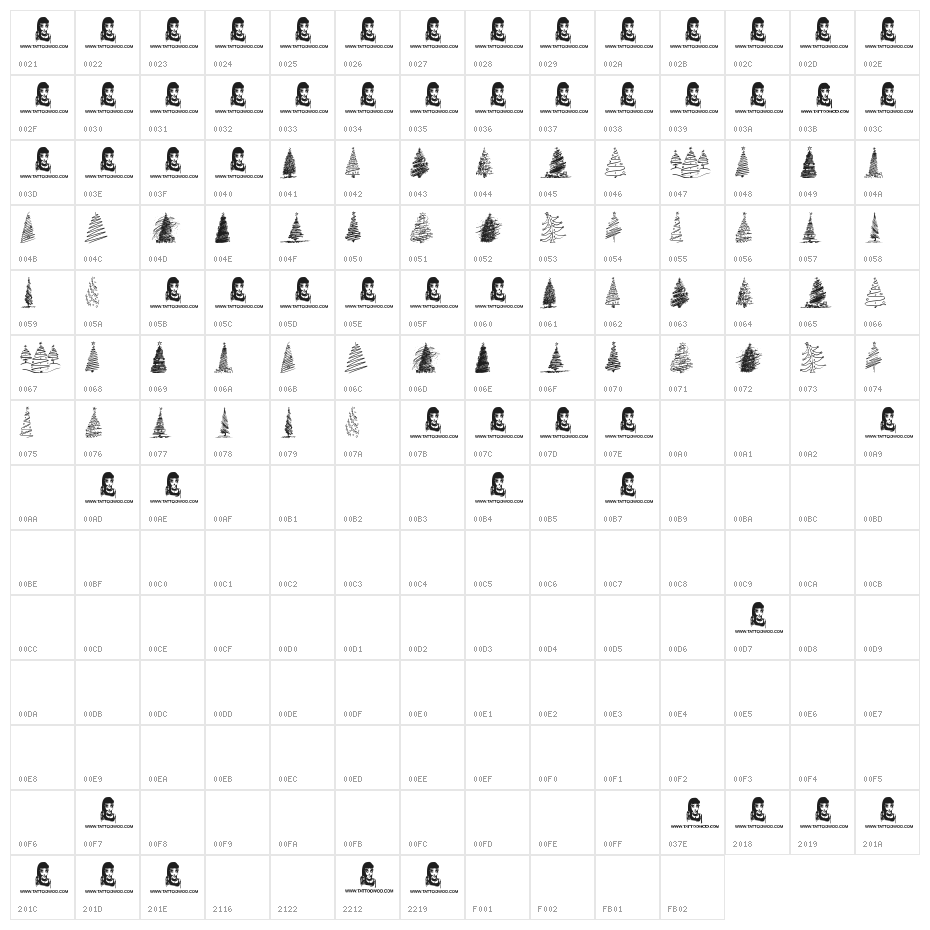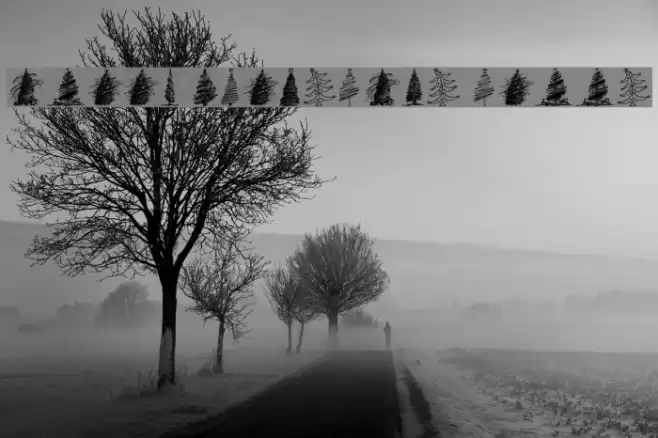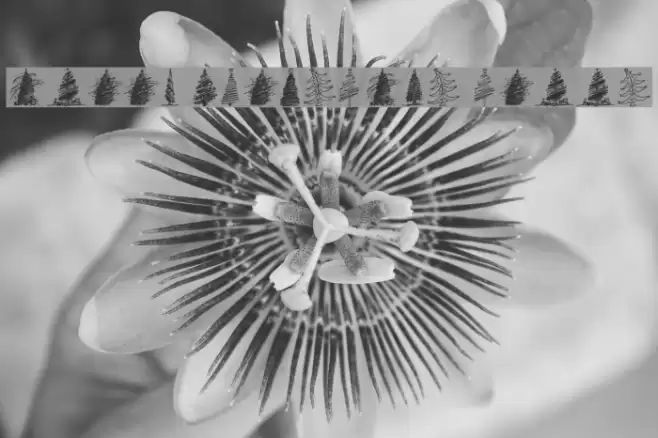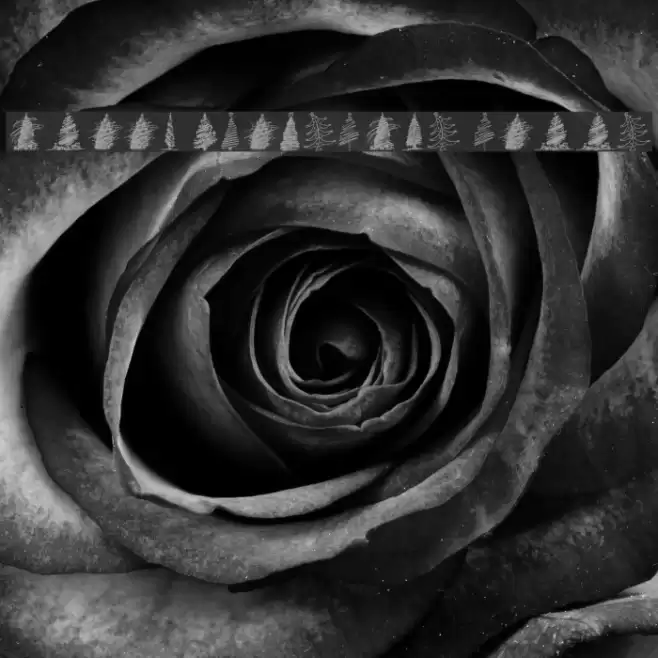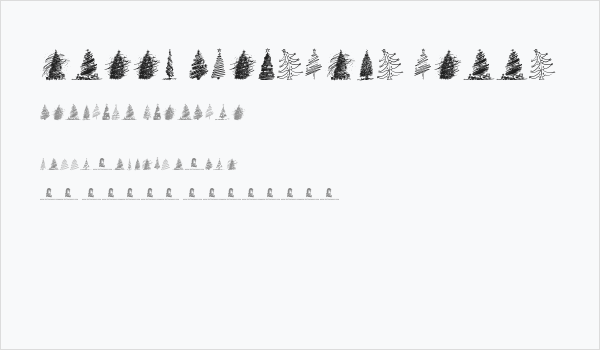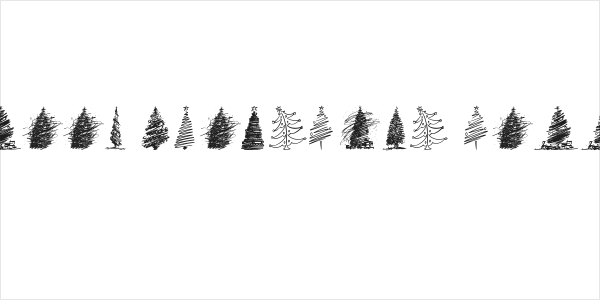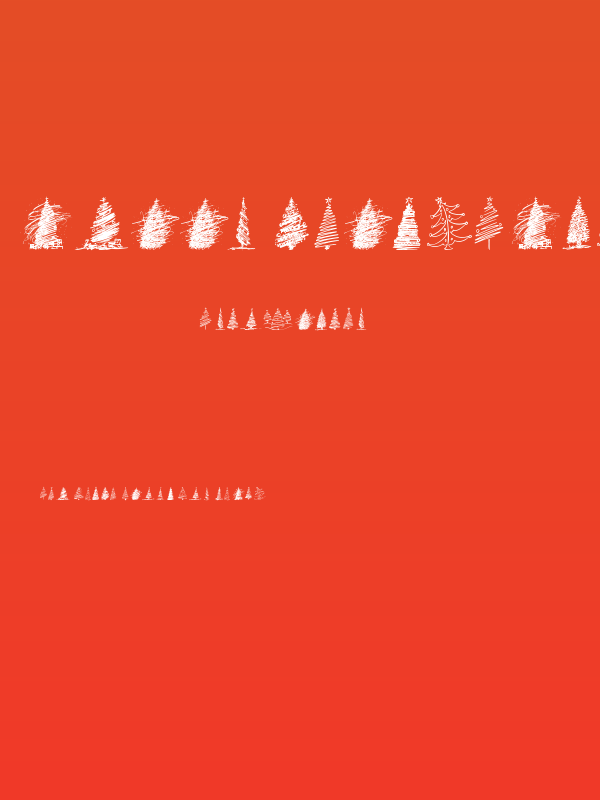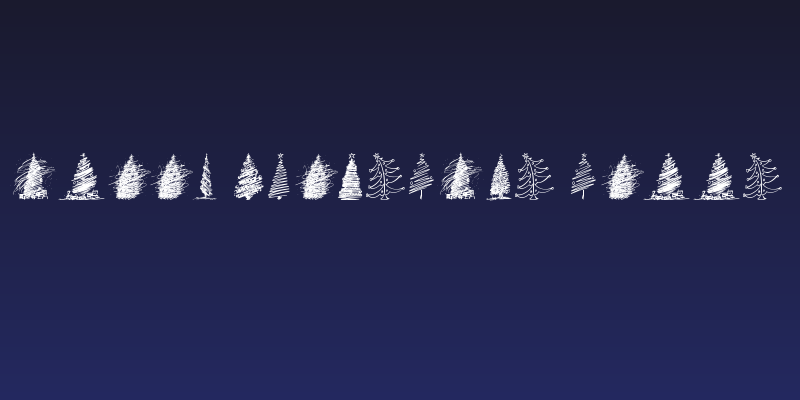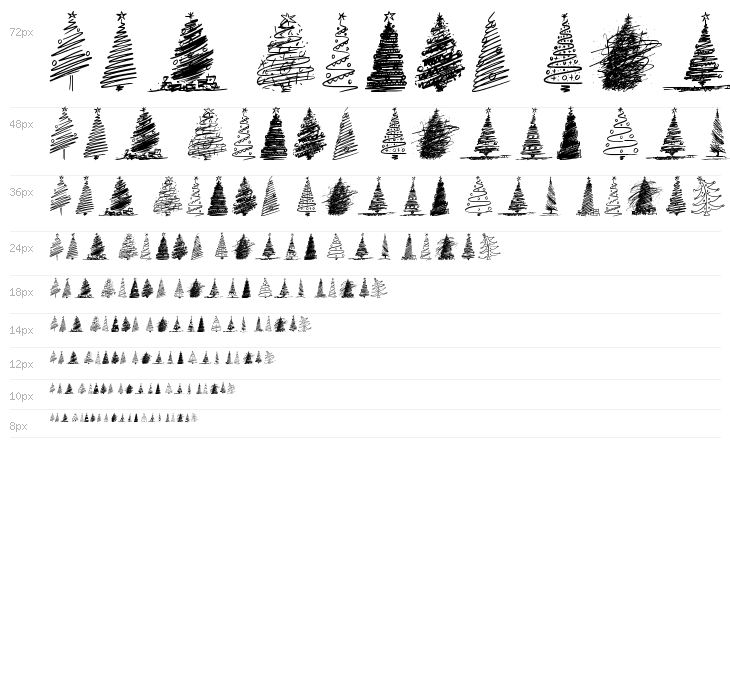
Merry Christmas Trees Font
Merry Christmas Trees Description
A decorative display font featuring a variety of hand-drawn Christmas tree illustrations in place of standard alphanumeric characters, with each glyph presenting a unique sketchy or whimsical tree design. The symbols and punctuation are also replaced by themed illustrations, and the overall style is playful and festive.
| Overall Style | Decorative, Festive, Hand-drawn |
| Use Case | Holiday graphics, Event invitations, Posters, Greeting cards |
| Proposed Projects | Holiday cards, festive posters, seasonal event invitations, Christmas-themed branding, decorative headings. |